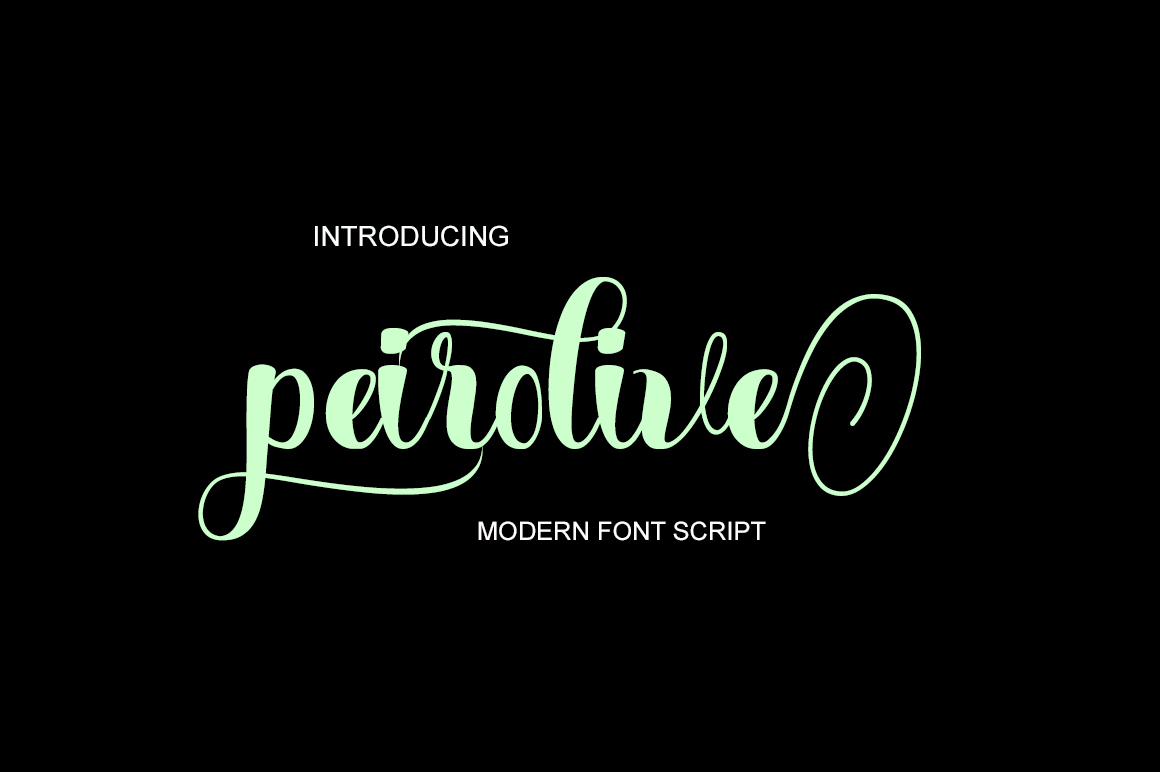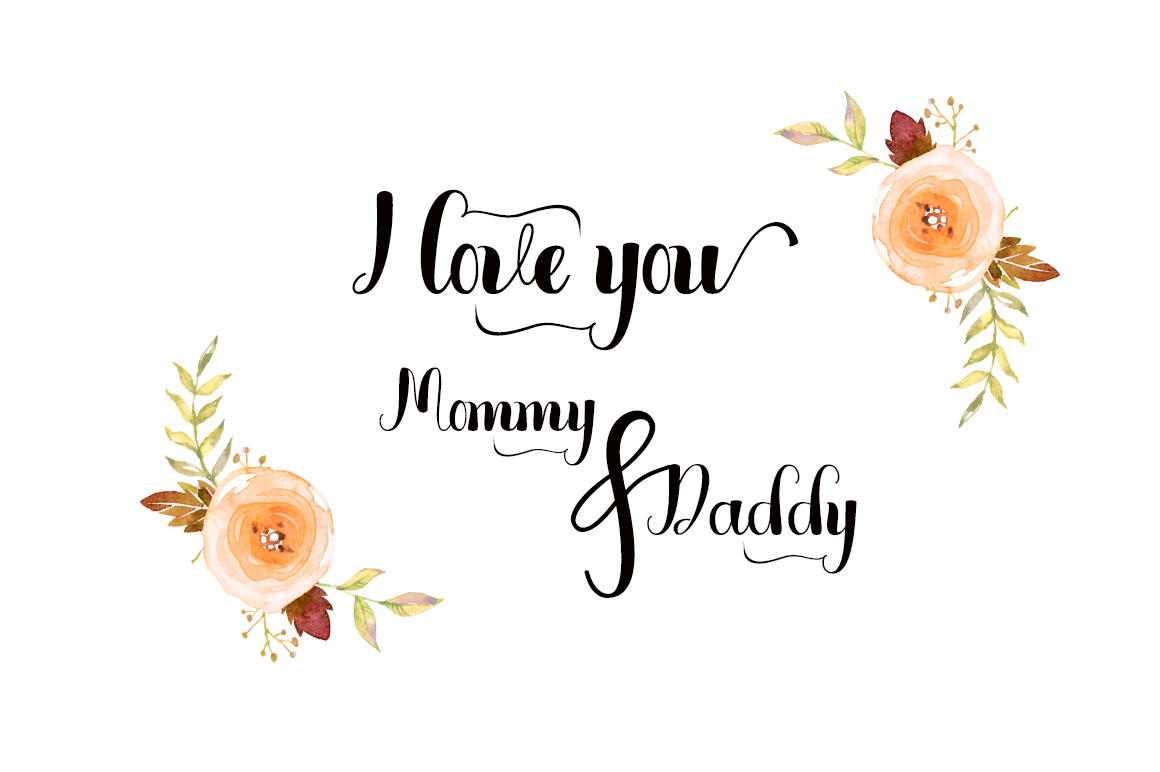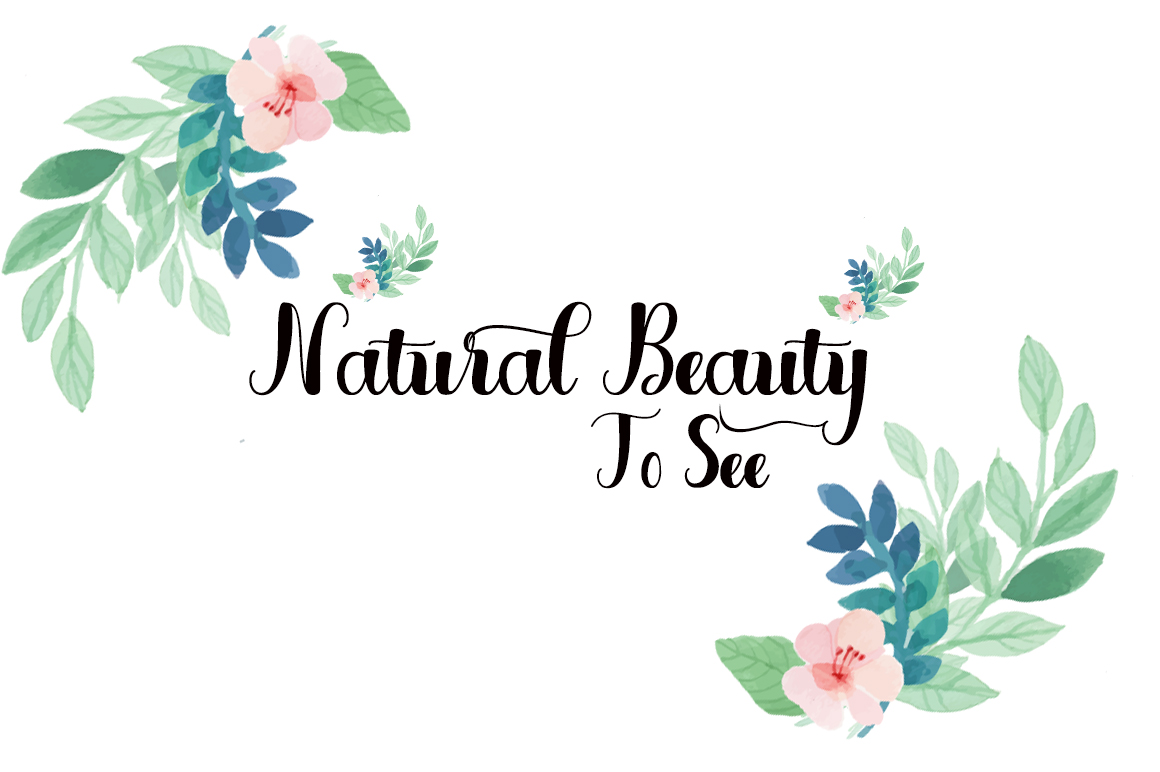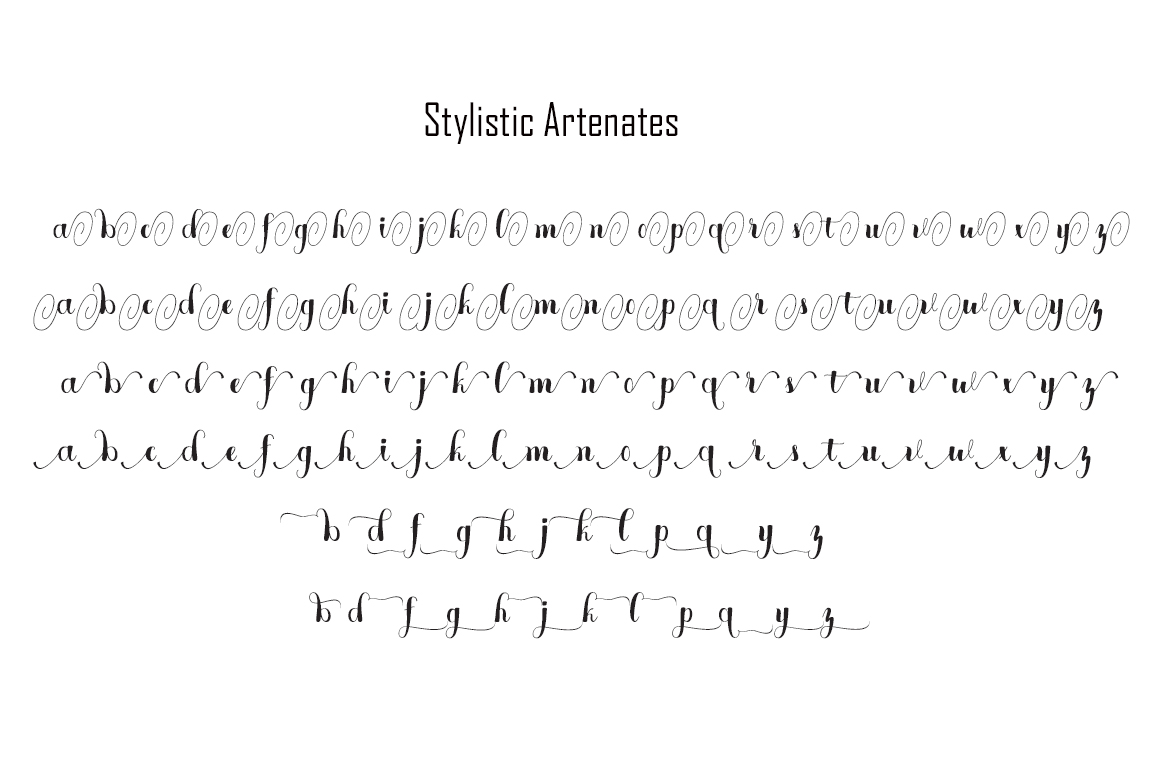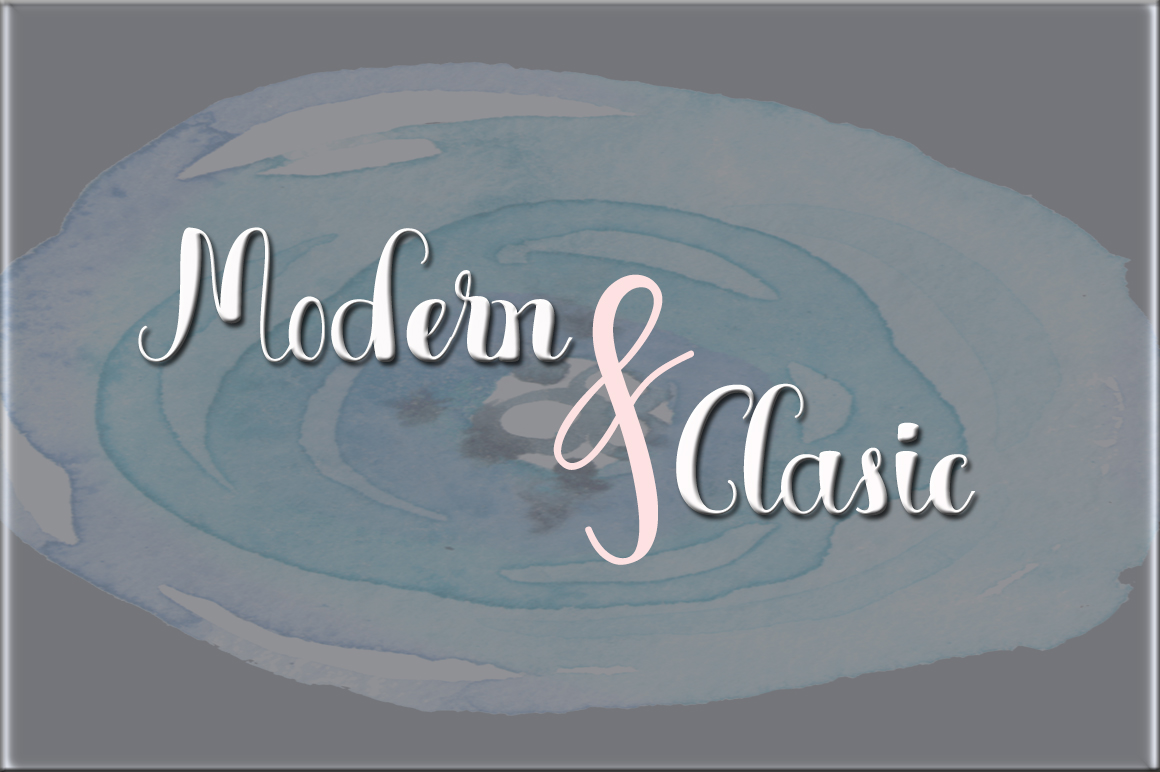
Peirolive Font
Peirolive is a stunning handmade script font, with modern calligraphy that’s on trend and fashionable. Feminine and romantic, Peirolive can add some classic appeal to your designs all the while keeping your style upto date.